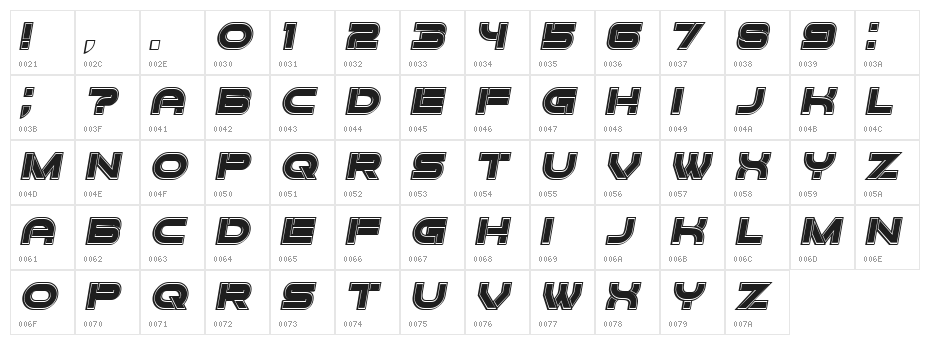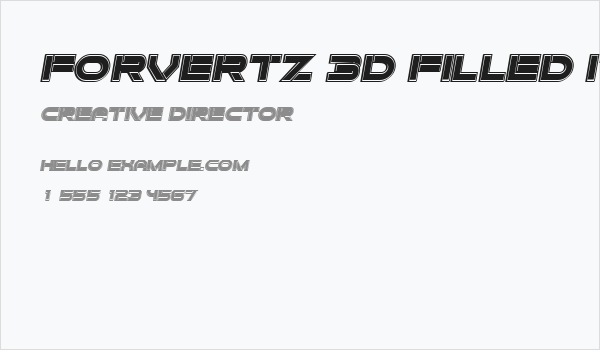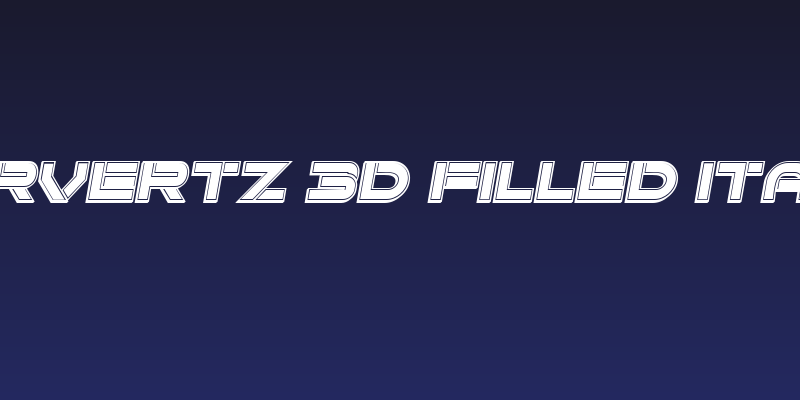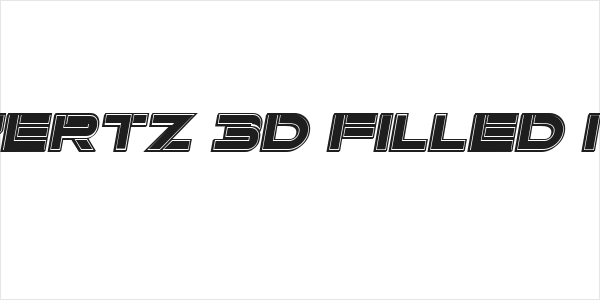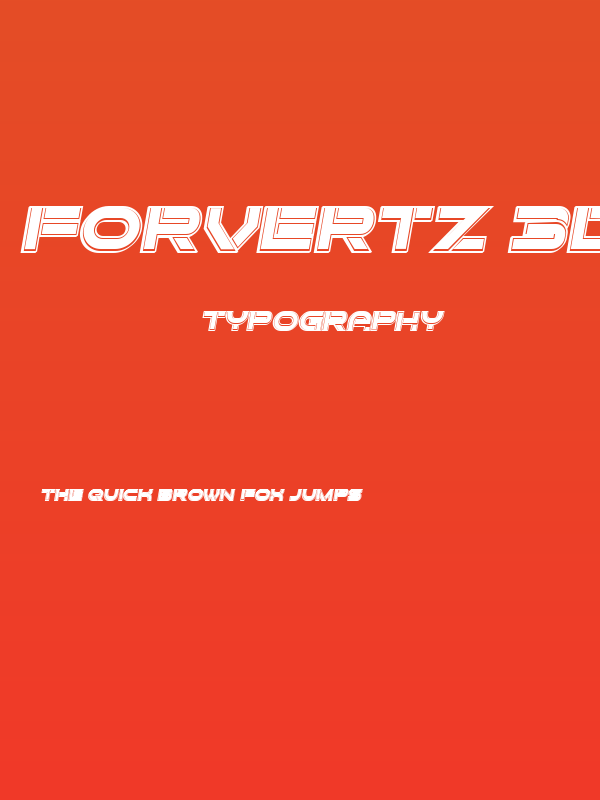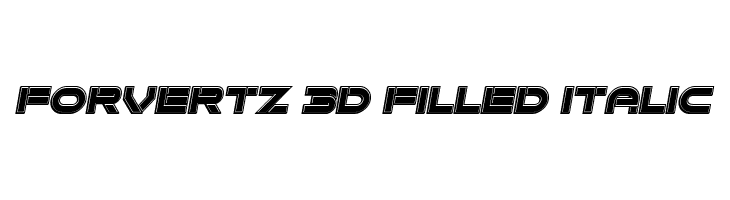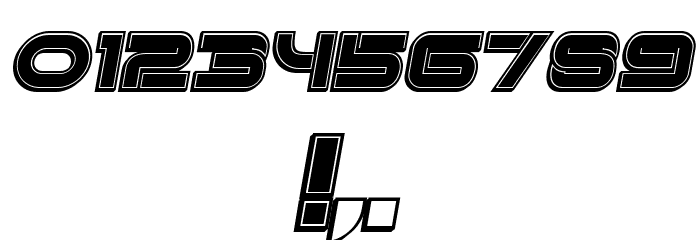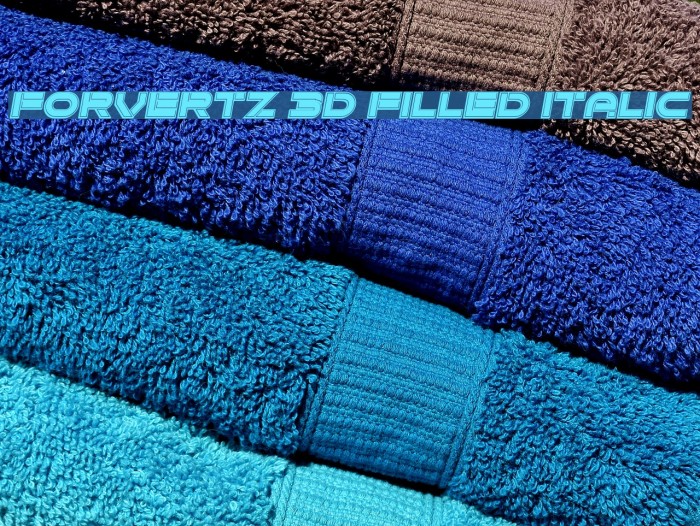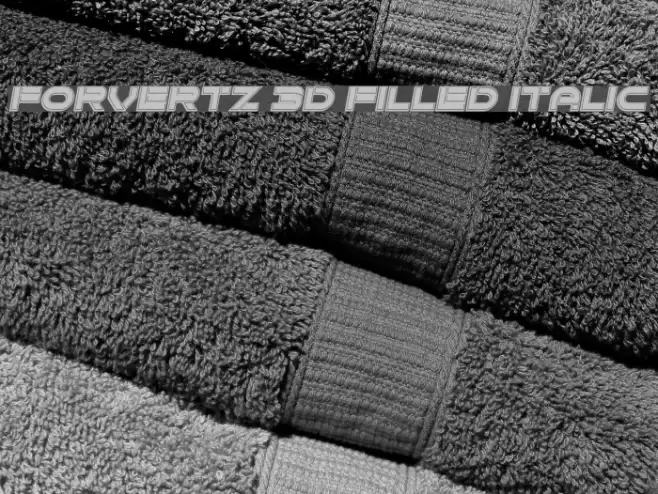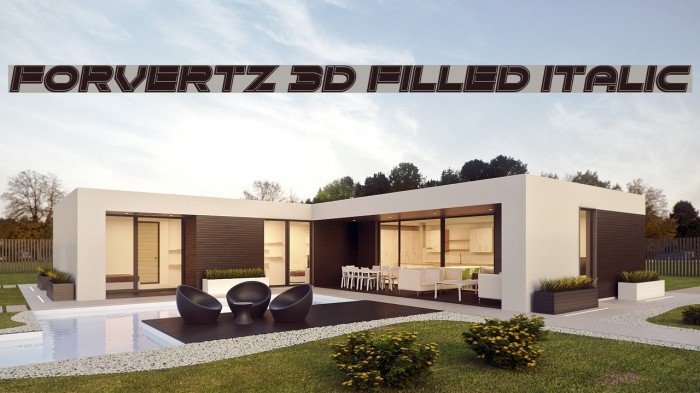
Forvertz 3D Filled Italic Font
Forvertz 3D Filled Italic Description
This font features a bold, three-dimensional appearance with a filled italic style. The characters are designed with a futuristic and dynamic look, incorporating sharp angles and a sense of motion. The 3D effect is achieved through the use of shading and layering, giving each letter a distinct depth. The uppercase letters are consistent in height, while the numbers and special characters maintain the same stylistic approach. The font's unique design makes it stand out, suitable for projects that require a modern and eye-catching typeface.
| Proposed Projects | Ideal for sci-fi themed designs, video game titles, tech branding, and futuristic posters. |